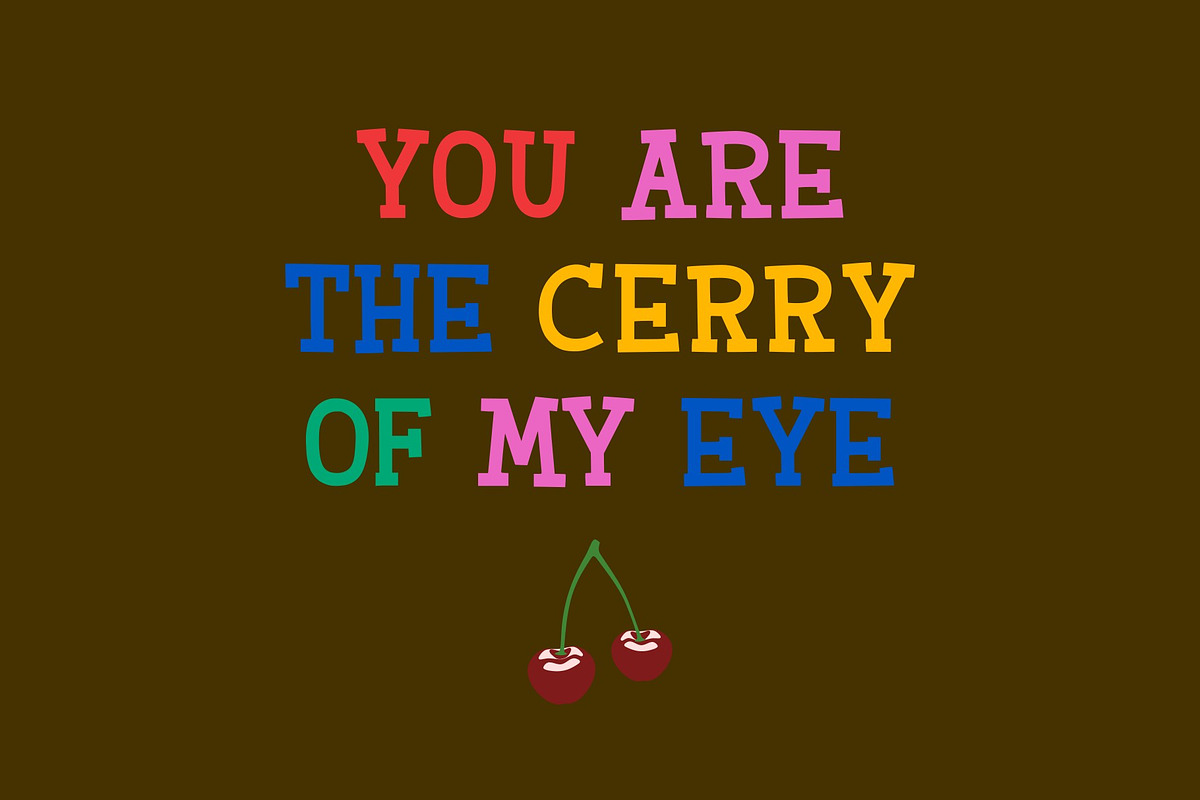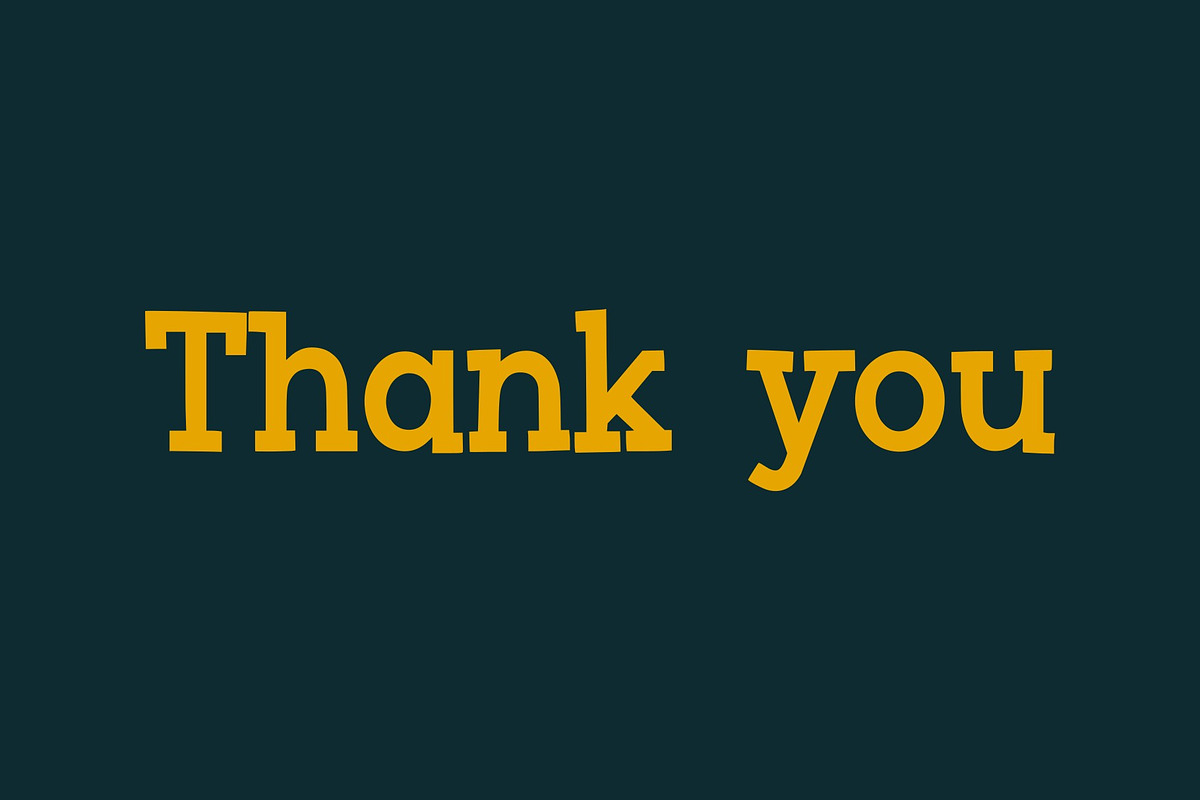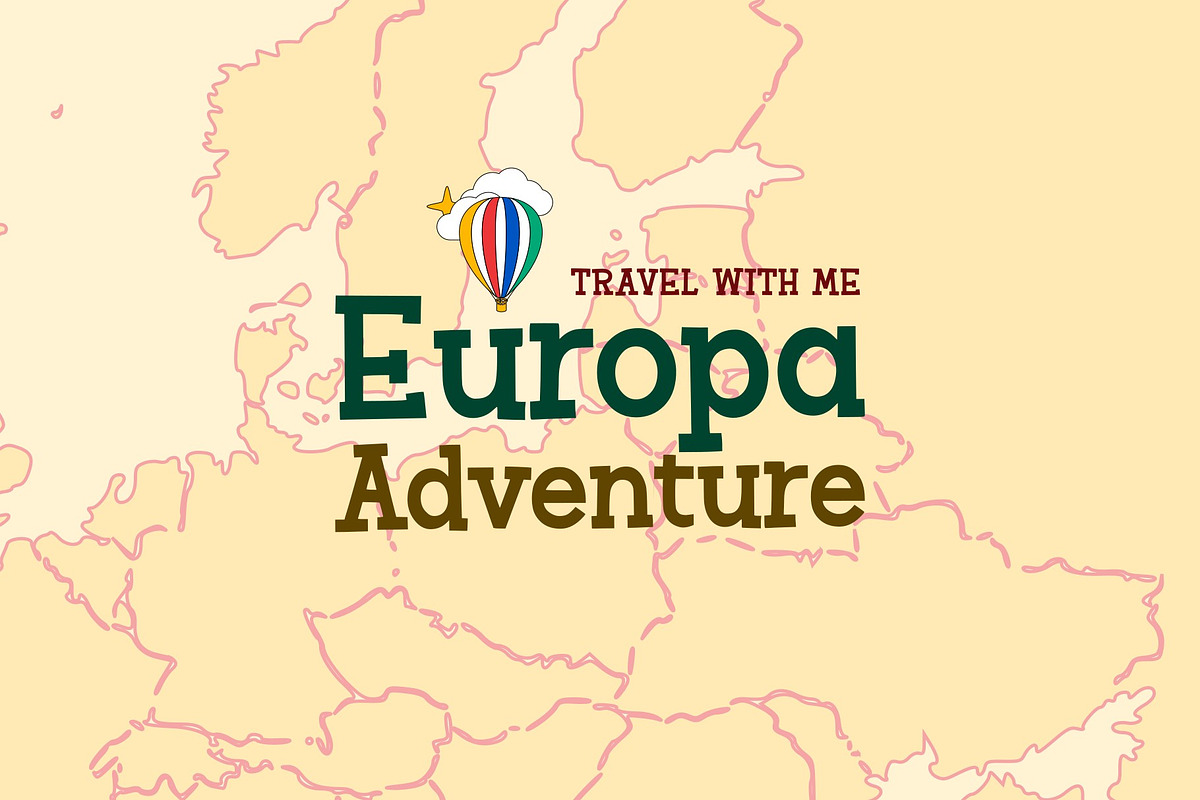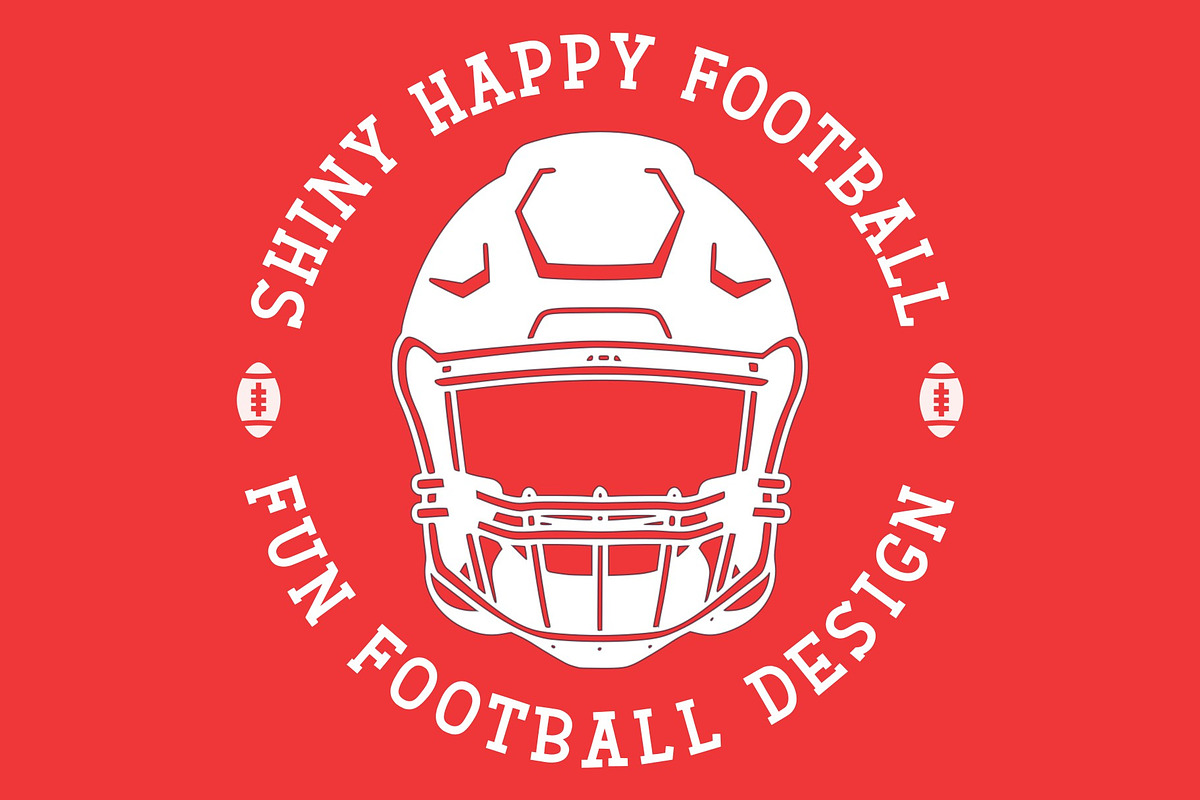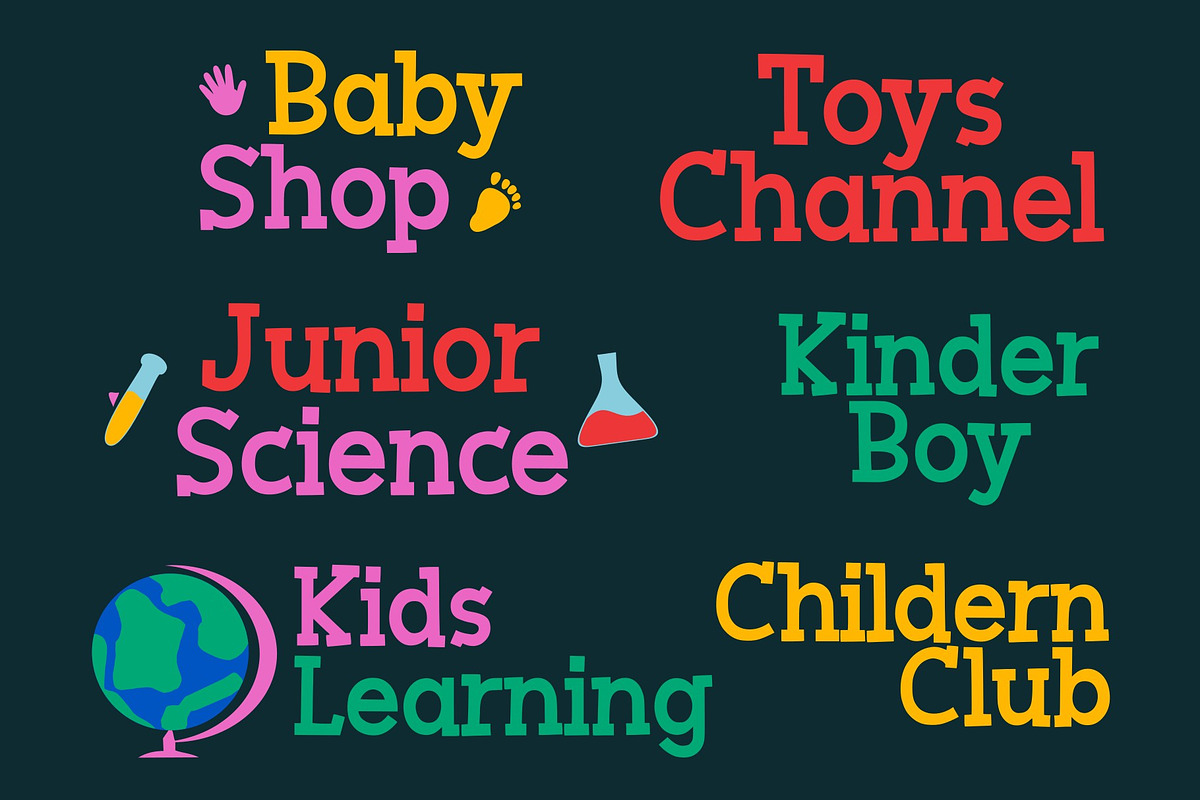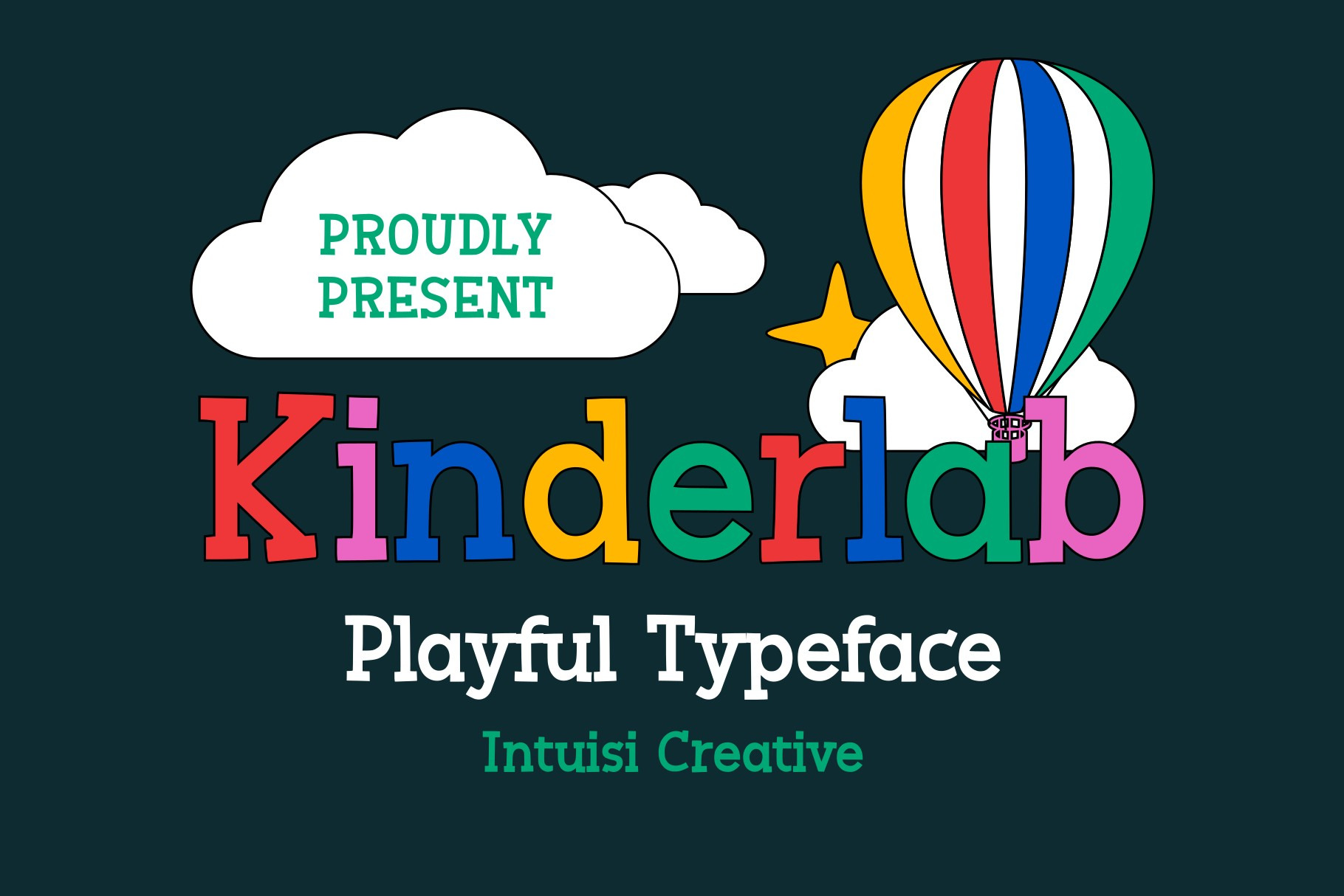
Kinderlab | Playful Typeface
Kinderlab is a hand-drawn slab serif font. Its cute, fun character and light nature make this typeface a must-have in your font library! Use it to express your creative and fun design ideas. Whether you use it for crafts, digital designs, presentations, or creating greeting cards, this font has the potential to become your favorite font, whatever the occasion!
Also with their help you can create a beautiful logo or frame for your home. Or use it for your business, book covers, stationery, marketing, magazines and more. Fall in love with its incredibly versatile style and use it to create spectacular designs! Use this font for any craft project that requires a personalized look!